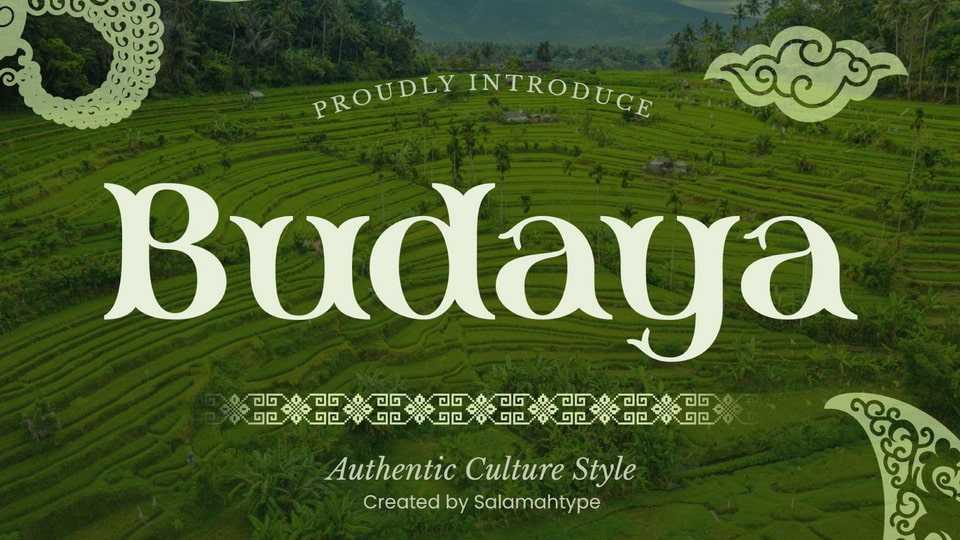
Download Budaya font, a unique letter shape typeface that gives a classic or traditional impression. This typeface incorporates visual elements, characters, or stylistic features inspired by the traditions, art, or aesthetics of a culture.